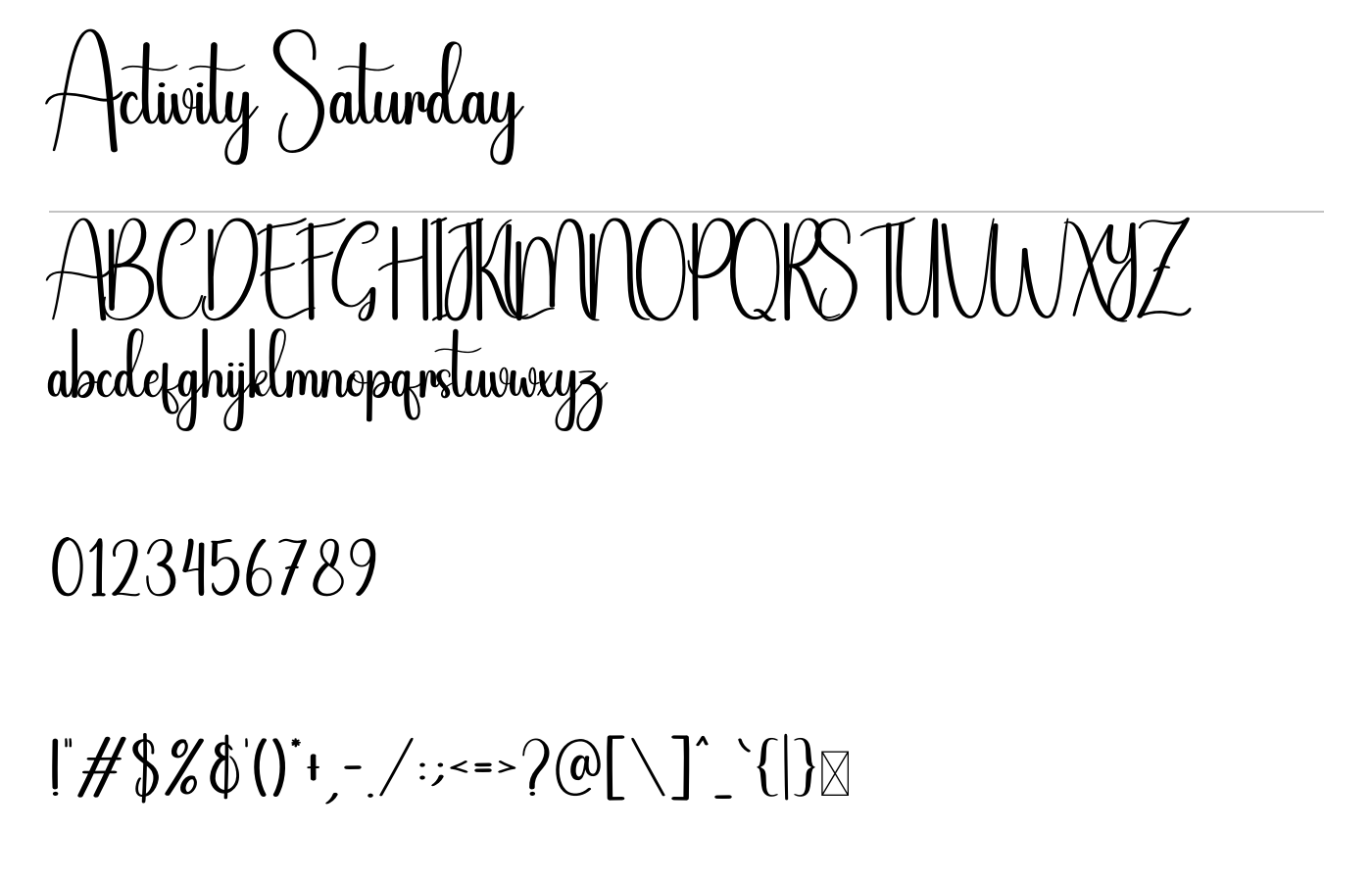
Activity Saturday is a playful, handwritten script font with tall, slender letterforms and a lively, casual feel. Its thin strokes and slightly irregular shapes create a friendly and approachable look, making it perfect for creative projects, invitations, and branding that seeks a personal, warm touch. This font works well in headlines and decorative text where a charming, informal style is desired.
Activity Saturday Font